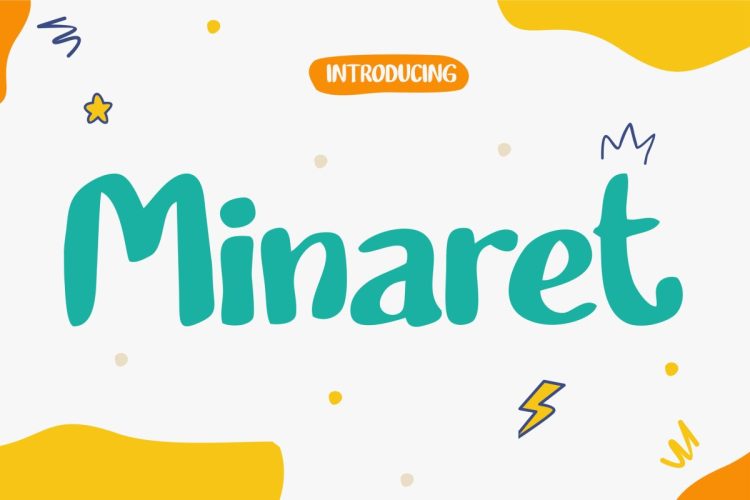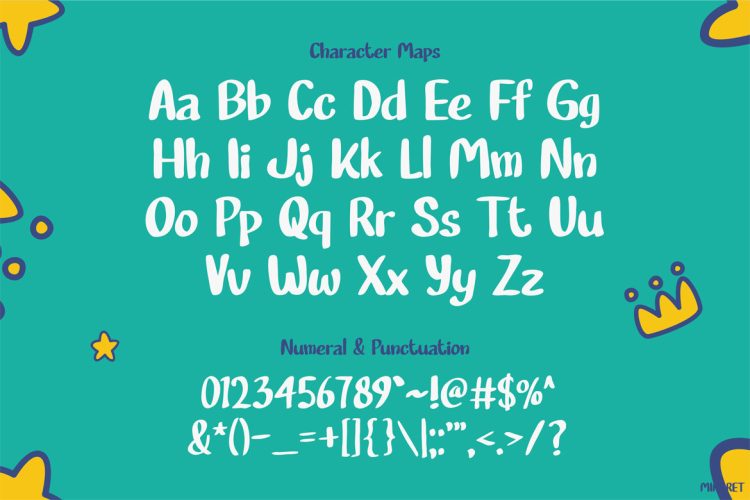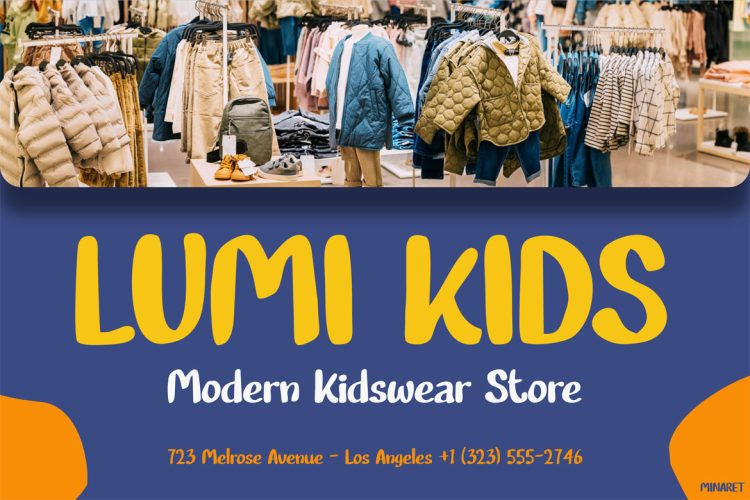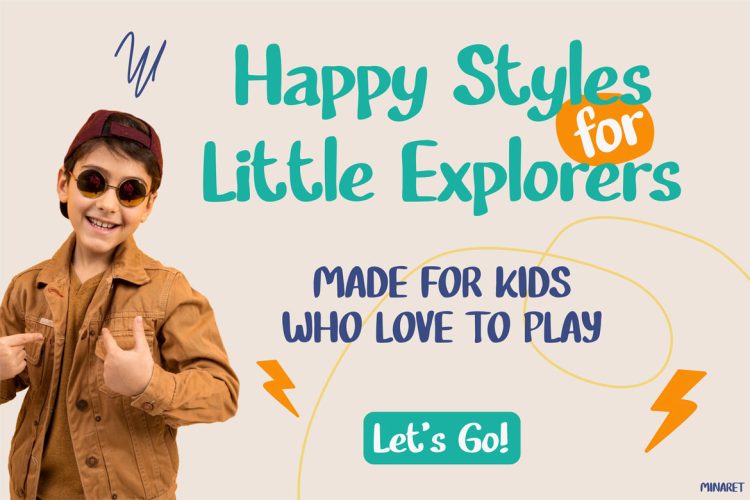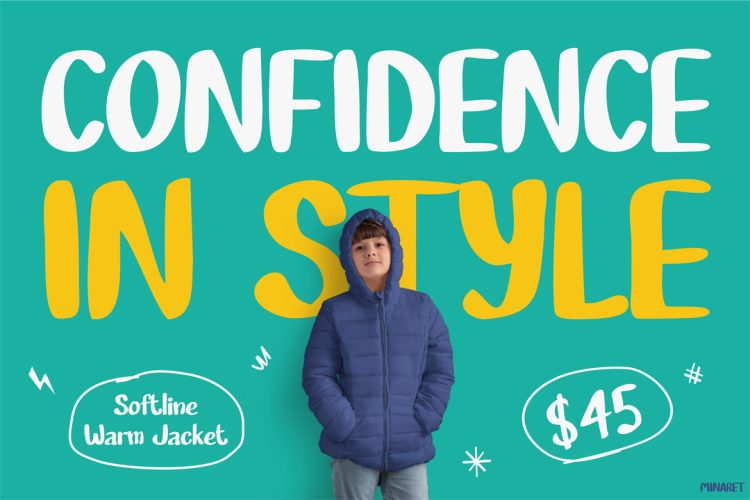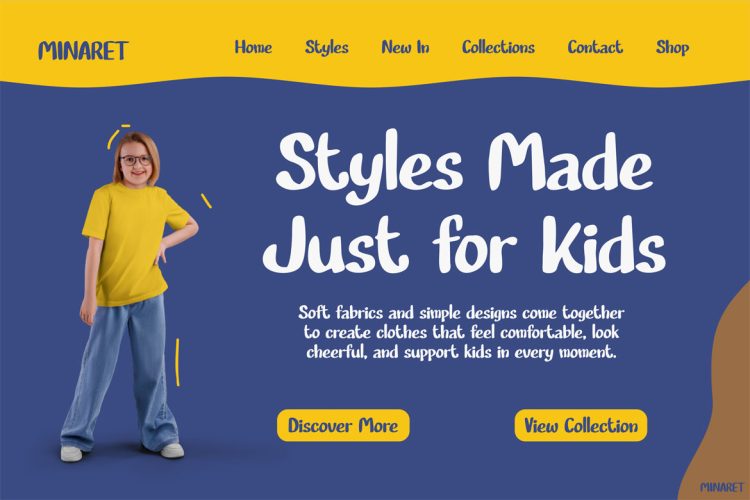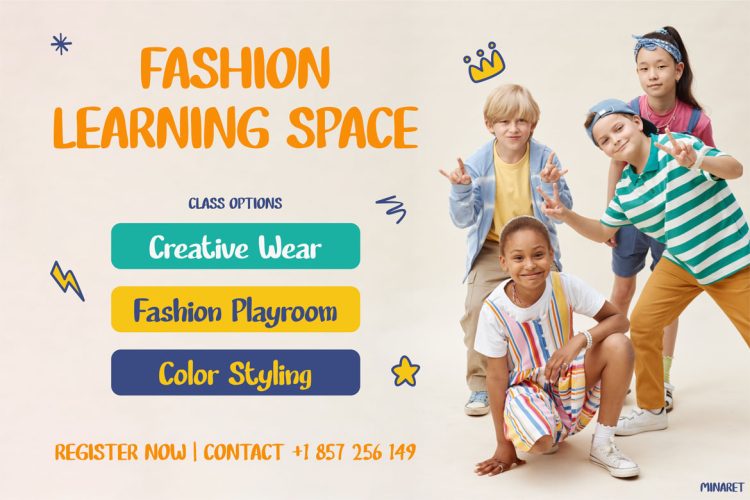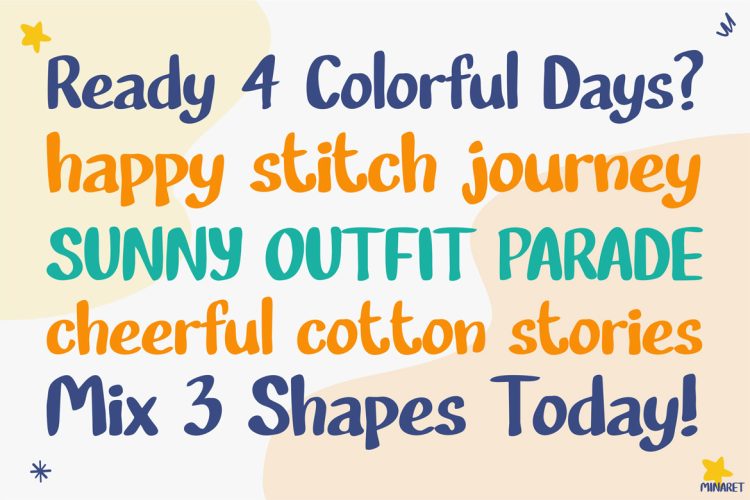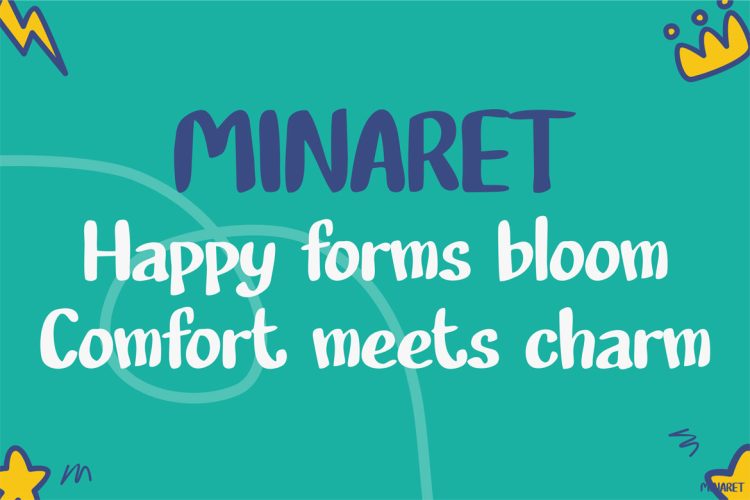
Kids Font Minaret โ Playful Shapes, Happy Messages
Kids Font Minaret is a cheerful display font created to bring joy into children-focused designs. From the first glance, it feels friendly and welcoming. Moreover, its rounded shapes and soft curves create a playful rhythm. At the same time, the letters stay clean and balanced. Therefore, the font looks fun without appearing messy. As a result, it works well for both bold headlines and short text. Overall, it instantly builds a warm and positive connection.
Kids Font Minaret features bold, bouncy letterforms inspired by childhood creativity. In addition, every character feels lively and expressive. The font includes uppercase and lowercase letters, numbers, and basic punctuation. Because of this, it supports many creative layouts. Furthermore, the spacing is carefully adjusted for clarity. As a result, readability stays strong in print and digital use. Meanwhile, the playful style pairs perfectly with bright colors. It also works well with illustrations and photos. Consequently, designs feel energetic and inviting.
Kids Font Minaret is ideal for childrenโs clothing brands and toy packaging. Moreover, it fits kids fashion stores and playful retail signage. Schools and kindergartens can also benefit from its friendly tone. In addition, learning centers can use it for posters and worksheets. Designers may apply it to Instagram posts and digital ads. Likewise, it suits storybooks, birthday cards, and event promotions. Therefore, parents, teachers, and small business owners will find it useful. Ultimately, it helps designs feel safe, joyful, and approachable.
Why You Should Choose It
In conclusion, Kids Font Minaret is more than a decorative font. Instead, it is a visual tool for communication and emotion. By using it, designs become more engaging and memorable. As a result, brands connect better with children and families. Finally, if you want your visuals to feel happy and playful, this font is the right choice.